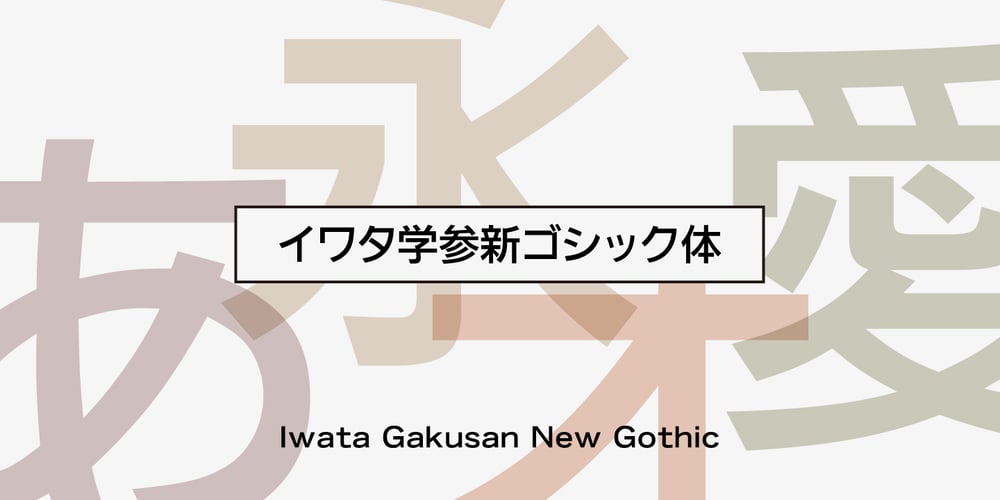
Iwata GNew Gothic Pro
Iwata GNew Gothic Pro Font Family was designed by published by IWATA. Iwata GNew Gothic Pro contains 2 styles and family package options. 教科書や参考書、問題集などの教育教材作成のために開発された新ゴシック体です。 筆やペンの入り、押さえ、ハネ、トメ、筆順などを理解しやすいようデザインしています。